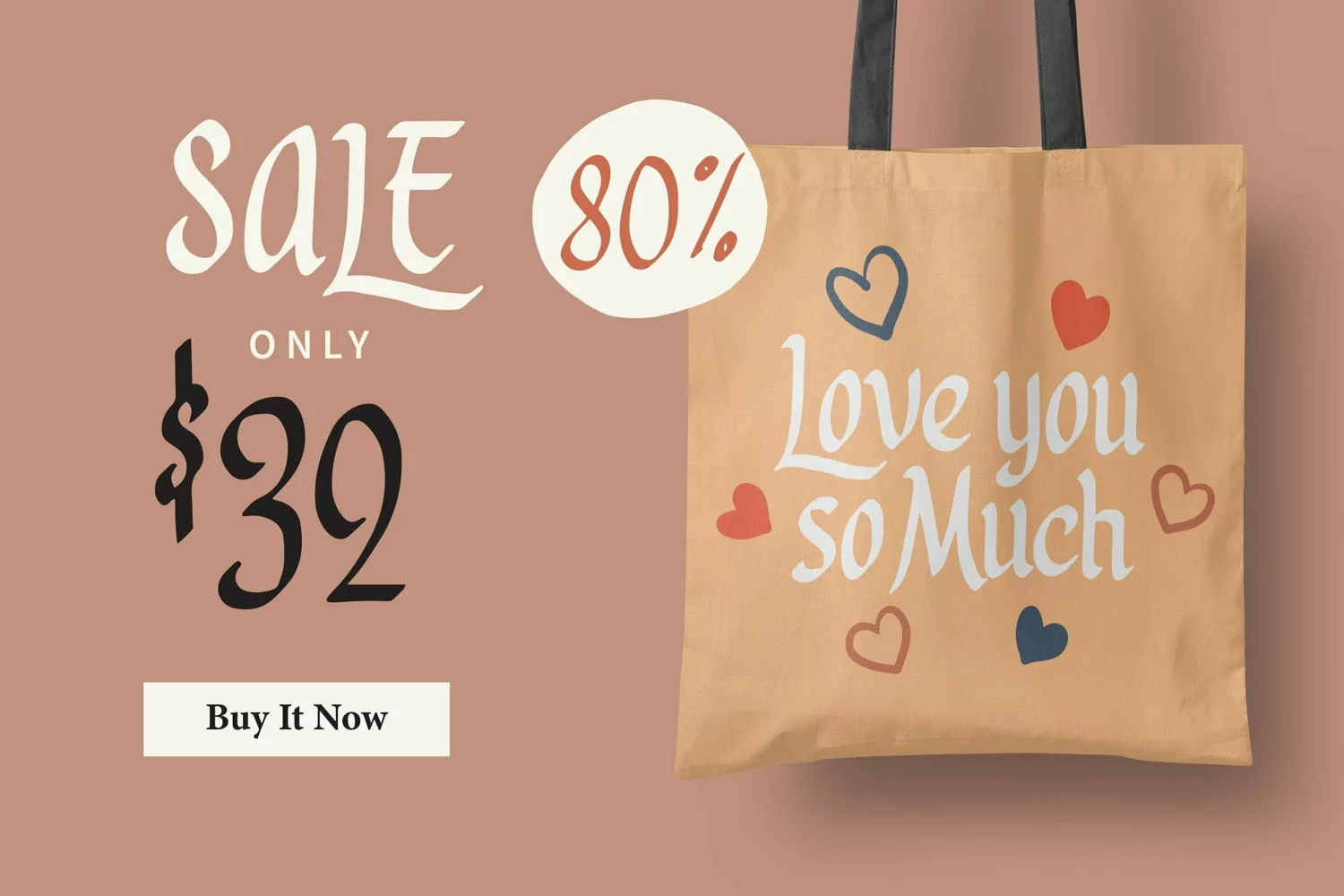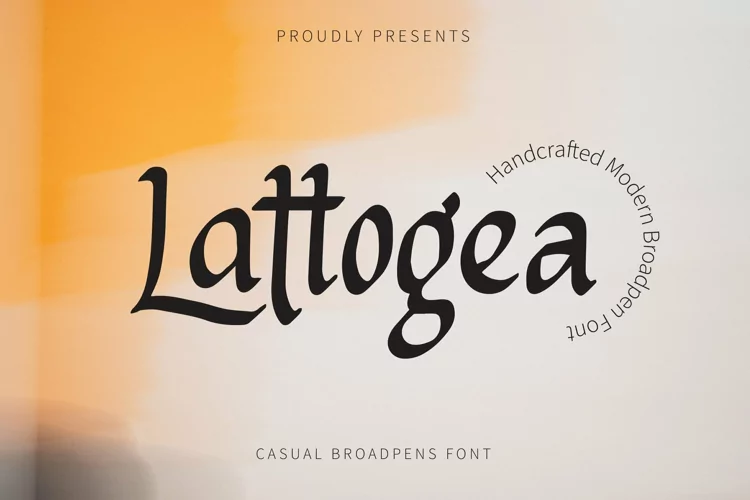
Lattogea - Casual Broadpens Fonts that contain lowercase, uppercase, symbol, and also support multi language. There’s a lot ligatures in this font. This Font also comes with ligatures, alternates and many more. this font suitable for fashion, branding, catalog and other design what you want.